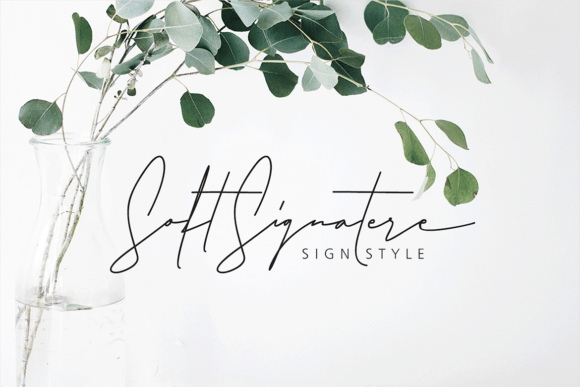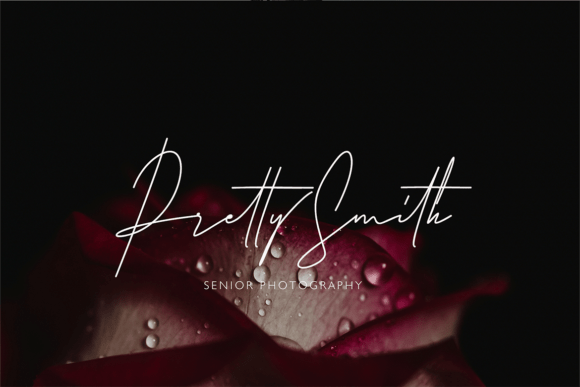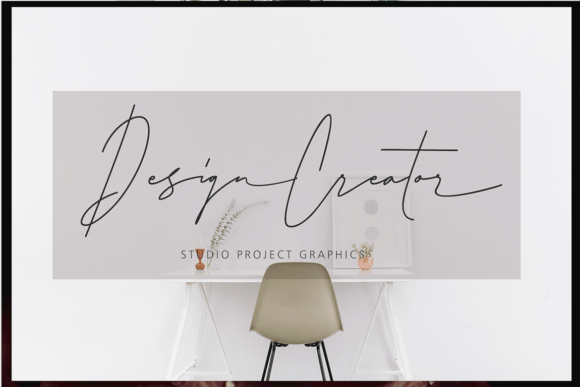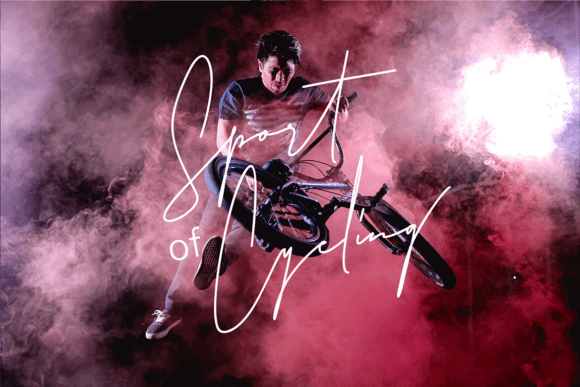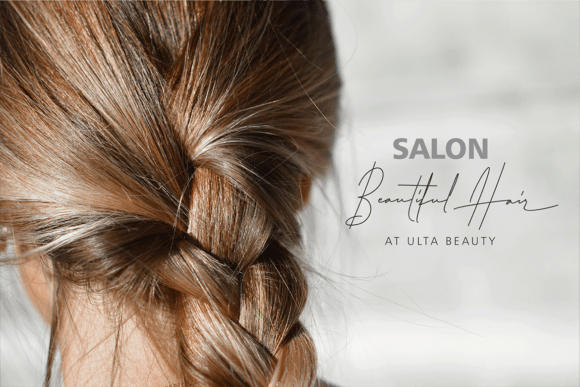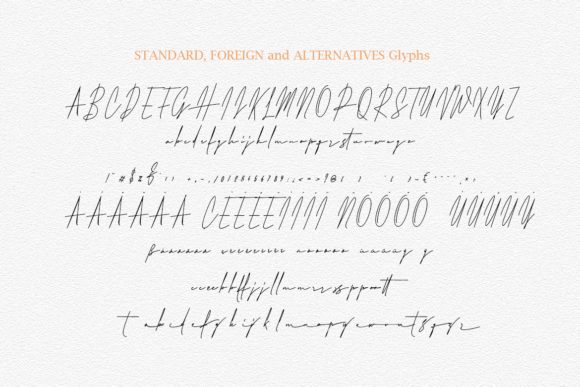
The Elegance of Handwriting Font: Elevating Design with Refined Contemporary Penmanship
In the world of typography, the right font can make all the difference in conveying a message, expressing a brand’s identity, and capturing the essence of a design. Among the numerous font styles available, handwriting fonts have gained popularity for their unique ability to add a personal touch to any project. One such font that stands out for its sleek and modern appeal is Handwriting Font, a monoline script font that embodies the sophistication of refined, contemporary penmanship.
Characteristics of Handwriting Font
Handwriting Font is distinguished by its very thin, consistent strokes and elongated ascenders, which give the letterforms a clean, airy, and sophisticated silhouette. This minimalist structure is expertly balanced by sharp, expressive terminals and a natural horizontal flow, making the font appear effortless and artistic. The result is a typeface that exudes elegance and refinement, perfect for designs that require a polished and human-centric aesthetic.
Key Features of Handwriting Font
- Monoline Script Font: Handwriting Font is a monoline script font, characterized by its single-line strokes that create a sense of fluidity and continuity.
- Thin, Consistent Strokes: The font features very thin, consistent strokes that give it a clean and sophisticated look.
- Elongated Ascenders: The elongated ascenders add a touch of elegance and refinement to the letterforms.
- Sharp, Expressive Terminals: The sharp, expressive terminals bring a sense of artistry and expressiveness to the font.
- Natural Horizontal Flow: The font’s natural horizontal flow makes it easy to read and creates a sense of effortlessness.
Use Cases for Handwriting Font
Handwriting Font is an excellent choice for a variety of design projects that require a polished and human-centric aesthetic. Some of the ideal use cases for this font include:
- High-End Fashion Branding: The font’s sophisticated and elegant look makes it perfect for high-end fashion branding, where a luxurious and refined aesthetic is essential.
- Minimalist Editorial Signatures: Handwriting Font’s clean and airy silhouette makes it an excellent choice for minimalist editorial signatures, where a touch of elegance is required.
- Luxury Product Packaging: The font’s refined and sophisticated look makes it suitable for luxury product packaging, where a high-end aesthetic is crucial.
- Creative Social Media Headers: Handwriting Font’s artistic and expressive nature makes it perfect for creative social media headers, where a polished and human-centric aesthetic is desired.
Why Choose Handwriting Font?
Handwriting Font offers a unique combination of elegance, refinement, and expressiveness, making it an excellent choice for designers and crafters looking to elevate their designs. Here are some reasons why you should choose Handwriting Font:
- Unique and Distinctive: Handwriting Font’s monoline script style and elegant features make it a unique and distinctive font that sets it apart from other fonts.
- Versatile: The font’s versatility makes it suitable for a wide range of design projects, from high-end fashion branding to creative social media headers.
- Elegant and Refined: Handwriting Font’s elegant and refined look makes it perfect for designs that require a sophisticated and luxurious aesthetic.
- Easy to Read: The font’s natural horizontal flow and clean letterforms make it easy to read, even at small sizes.
Handwriting Font is a sleek and modern monoline script font that captures the essence of refined, contemporary penmanship. Its elegant and refined features make it an excellent choice for designers and crafters looking to elevate their designs with a polished and human-centric aesthetic. With its versatility, unique style, and ease of use, Handwriting Font is sure to become a go-to font for a wide range of design projects.